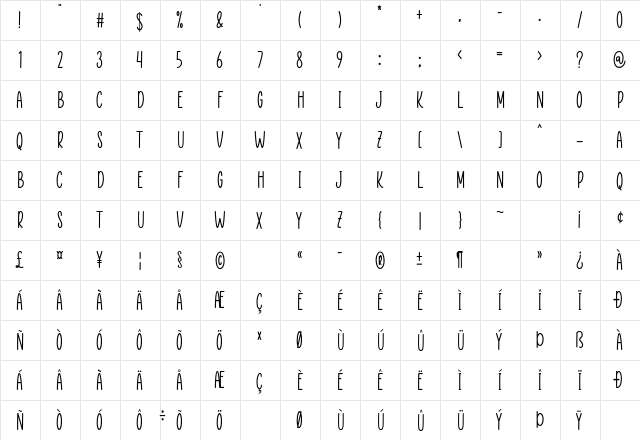
Paper Flowers Regular
Design Context for Paper Flowers Typeface
Paper Flowers takes a measured approach to typography — its balanced proportions and neutral character make it a reliable workhorse for both digital and print work.